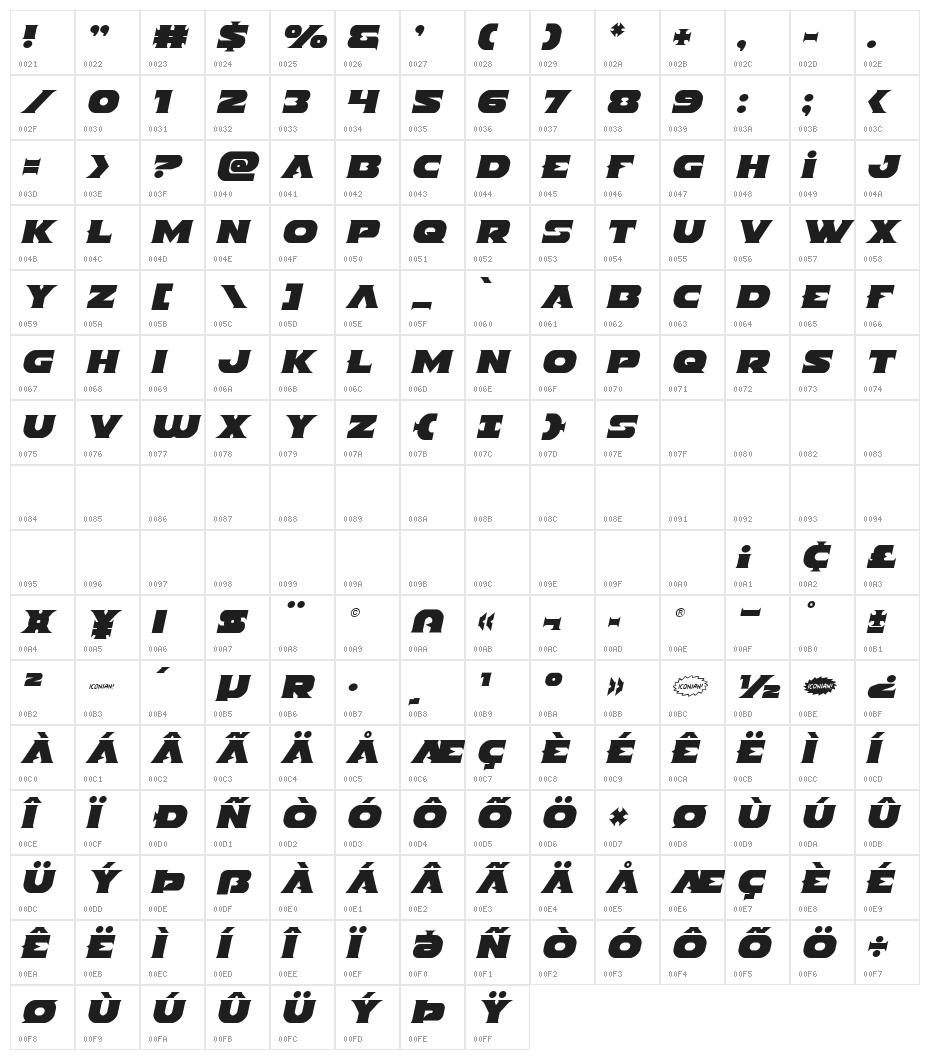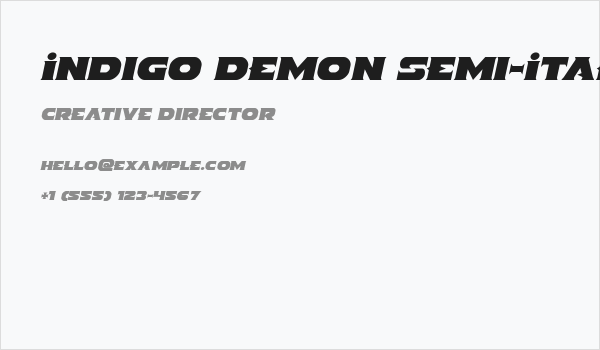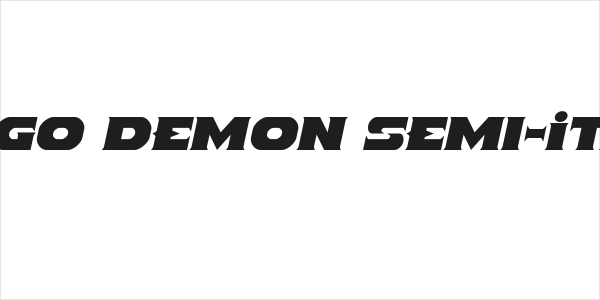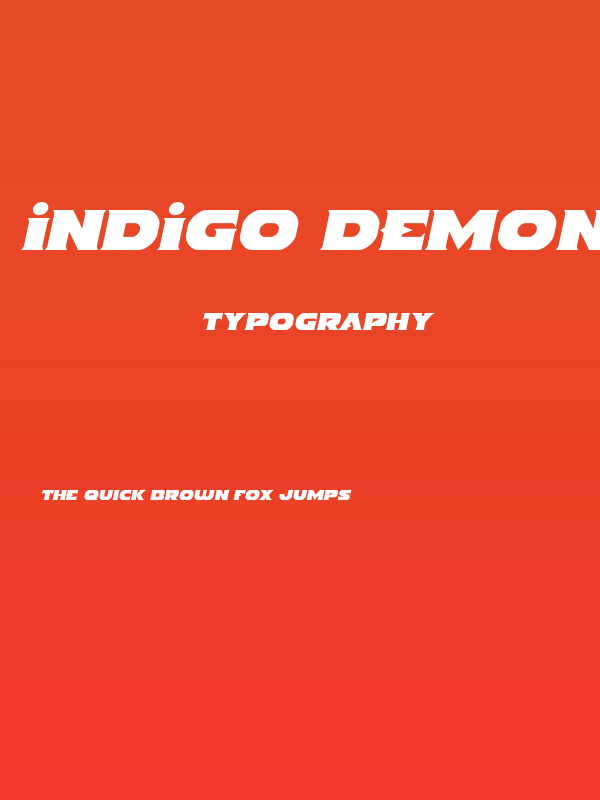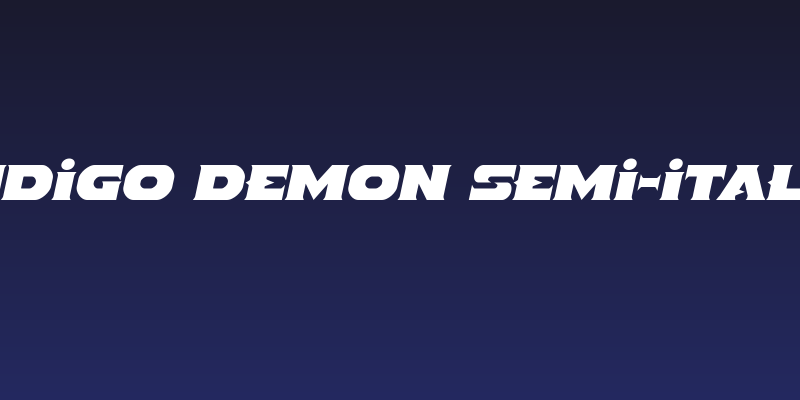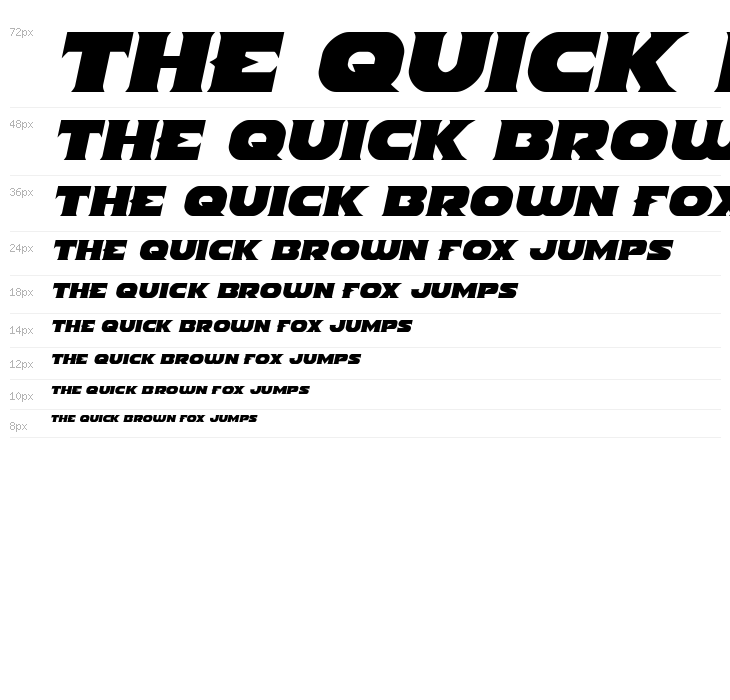
Indigo Demon Semi-Italic Font
Indigo Demon Semi-Italic Description
This font exhibits a bold and dynamic style, characterized by its sharp angles and geometric shapes. The letters are slightly italicized, adding a sense of motion and energy. The uppercase and lowercase letters maintain a consistent design, with a strong emphasis on diagonal lines and pointed edges. The numerals and special characters follow the same bold and angular aesthetic, ensuring a cohesive look across all characters. This font's unique style makes it stand out, offering a modern and edgy appearance that is both striking and memorable.
| Proposed Projects | Ideal for projects that require a bold statement, such as branding, posters, video game titles, and sports-related designs. |